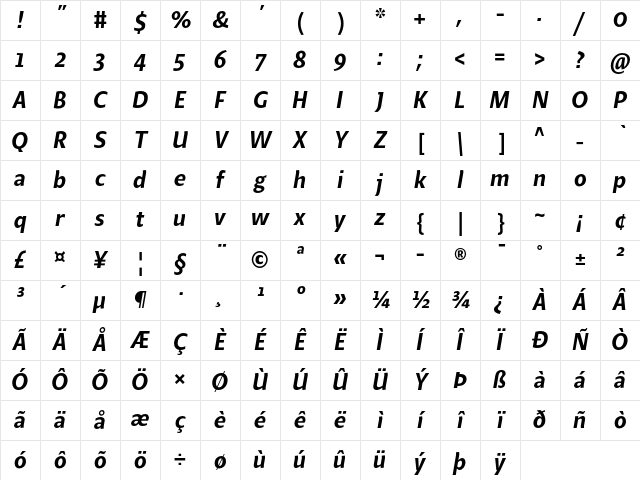
Beret LT Std Medium Italic
Designer: Eduardo Omine
Complete Beret LT Std Medium Italic glyph index. Displaying only characters natively supported by Beret LT Std Medium Italic font.
Design Context for Beret LT Std
Beret LT Std is a composed and adaptable typeface that performs quietly and consistently across a wide range of design contexts. The slanted form adds forward momentum and visual energy. Its slender proportions lend an understated elegance to any composition.